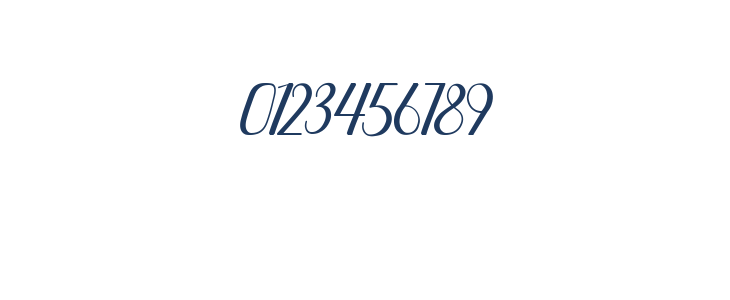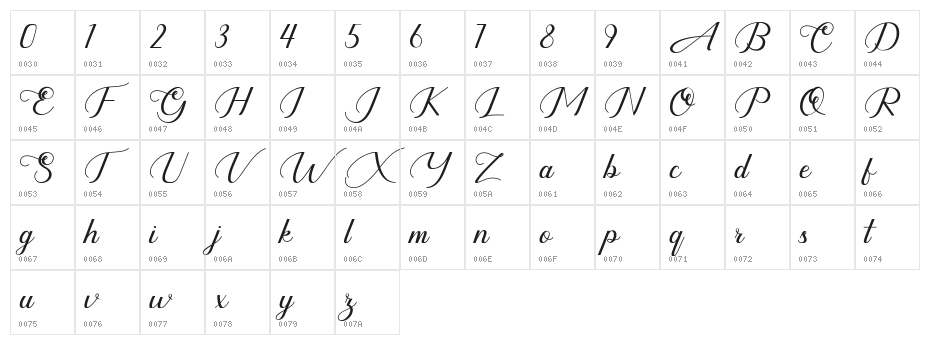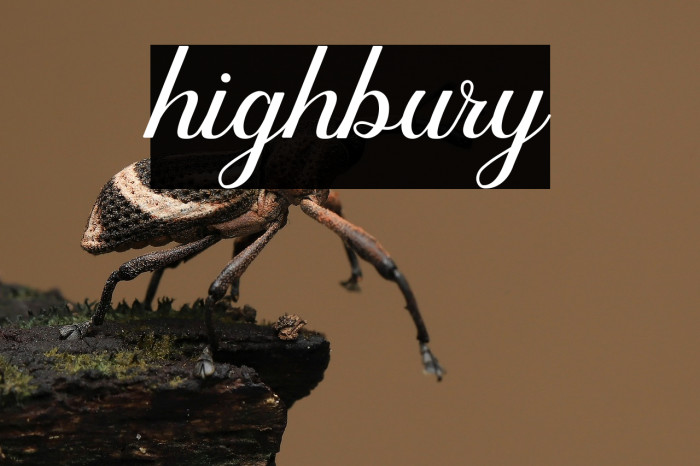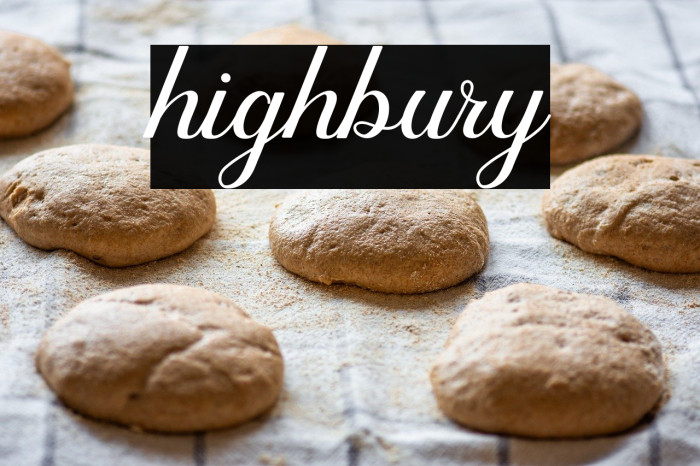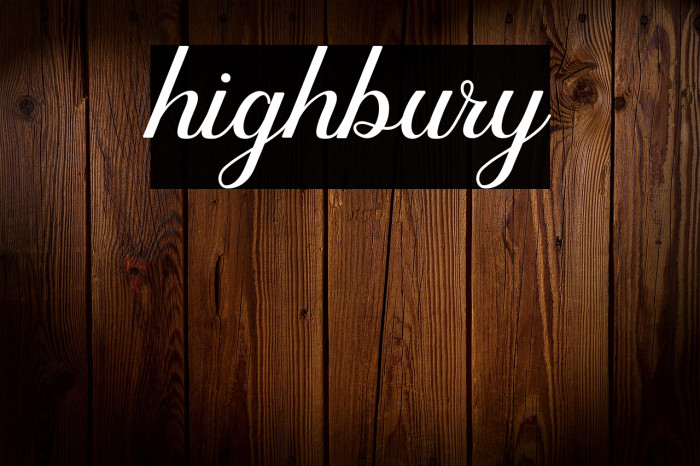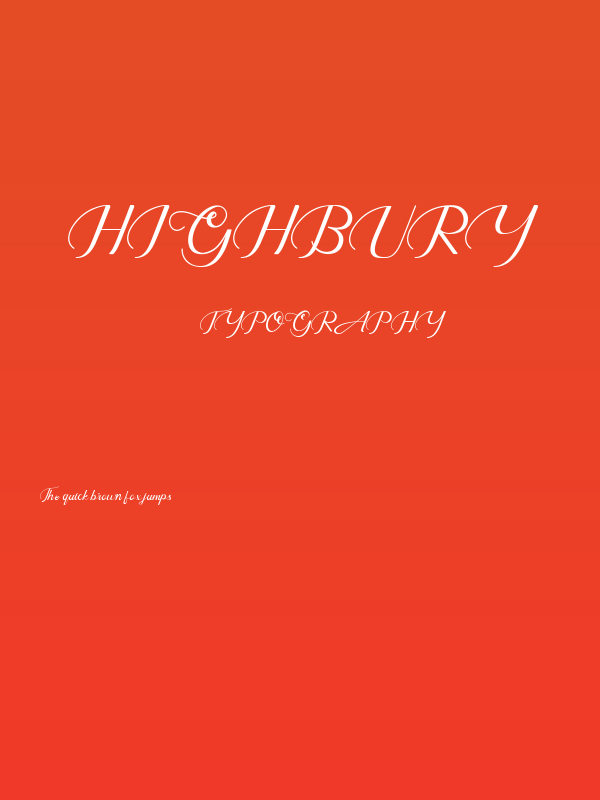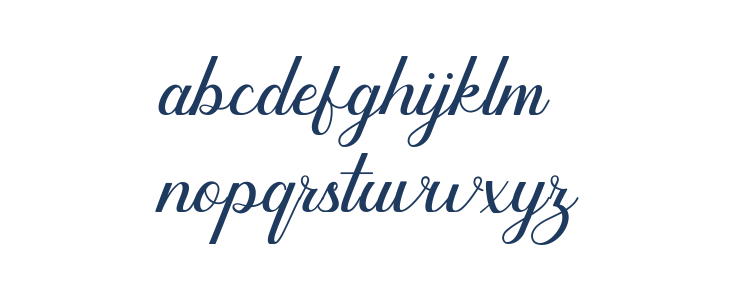
highbury Font
highbury Description
This elegant script font features a sophisticated and flowing design, characterized by its graceful curves and delicate strokes. The uppercase letters exhibit a classic calligraphic style with intricate loops and swashes, creating a sense of movement and fluidity. The lowercase letters maintain a consistent style, with smooth connections between characters that enhance readability while preserving the font's ornate nature. The numerals are designed with a similar flair, ensuring a cohesive look across all characters. This font's refined appearance makes it ideal for projects that require a touch of elegance and sophistication.
| Proposed Projects | Ideal for wedding invitations, luxury branding, elegant packaging, and formal event programs. |